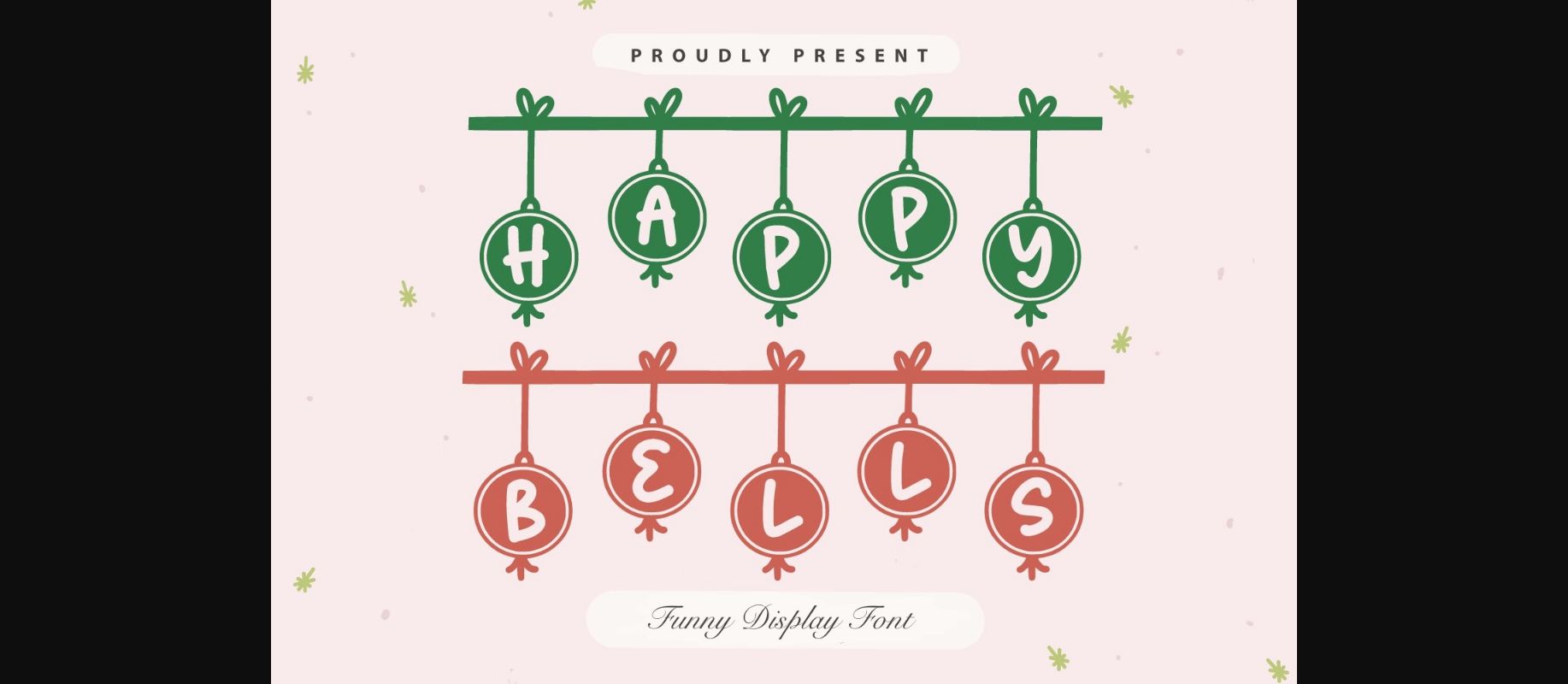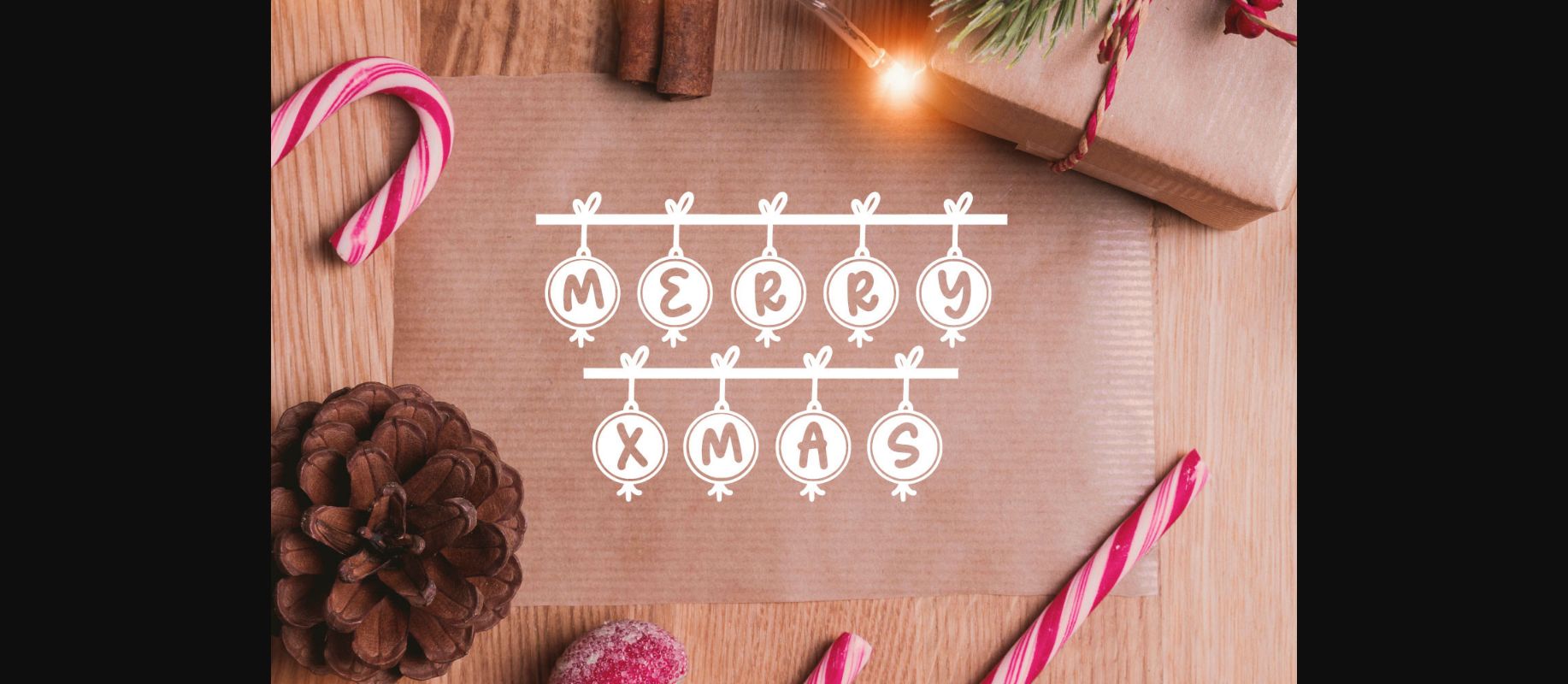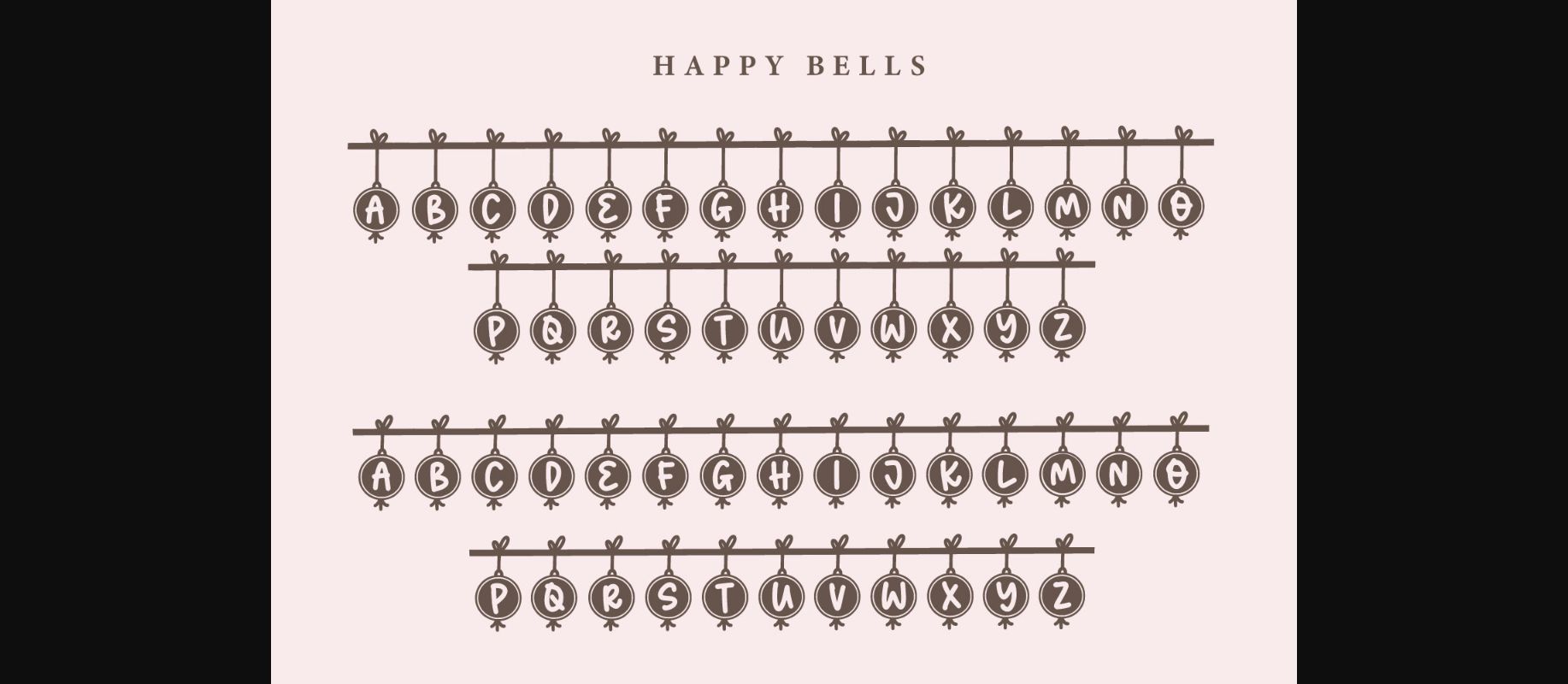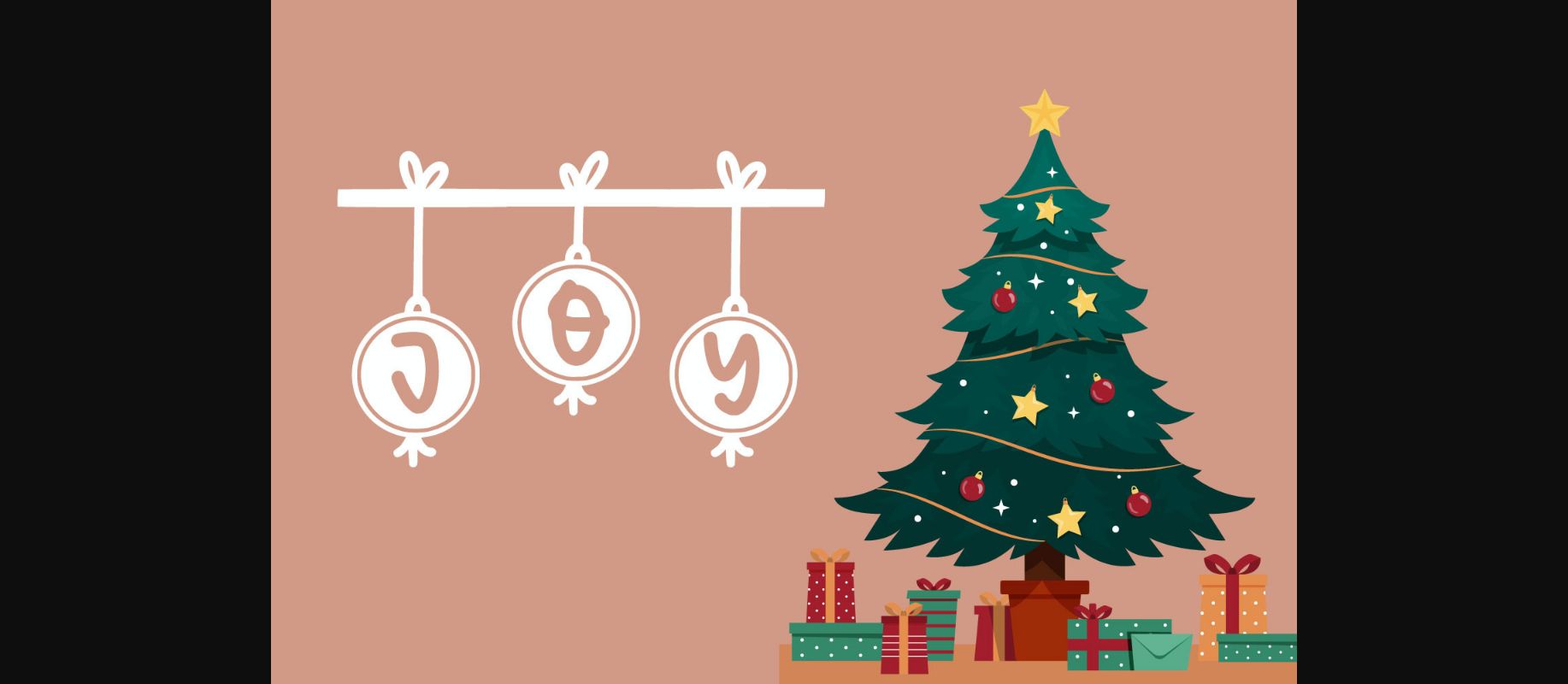
HomeDecorative FontsHappy Beels Font Decorative Fonts Happy Beels Font FacebookXPinterestWhatsApp 1 of 6 ... Happy Beels Font Poster 2... Happy Beels Font Poster 3... Happy Beels Font Poster 4... Happy Beels Font Poster 5... Happy Beels Font Poster 6... About Happy Beels Font Happy Beels is a decorative font with the theme of bells. This font is perfect for your winter projects, it looks really cute and adorable. DOWNLOAD NOW People also explored Karma Smoke Font Lille Snemand Jolly Oranges Font Invite Tranquility Font Rainbow Font Parmesan Font Sleepy Bear Font Lobster Font Richie Cillan Font 440 0 TagsHappy Beels Font Previous articleSnowy Moment FontNext articleCat Lady Font LEAVE A REPLY Cancel reply Comment: Please enter your comment! Name:* Please enter your name here Email:* You have entered an incorrect email address! Please enter your email address here Website: Save my name, email, and website in this browser for the next time I comment. Personal Use Free BD Pipe Personal Use Free Read more about this font Love Heart Personal Use Free Read more about this font Hello Sarrah Personal Use Free Read more about this font Special Day Personal Use Free Read more about this font BLOG Free vs Paid Fonts: Why Investing in Premium Fonts Is Worth It Free vs Paid Fonts: Why Premium Fonts Are Worth It in 2025 The debate of free vs paid fonts continues in the design world. While... How to Cut Any Font on Cricut: Convert a Font to SVG (Free) 5 Fonts That Will Dominate Design Trends in 2026 Best Fonts for YouTube Videos: Make Your Thumbnails Stand Out